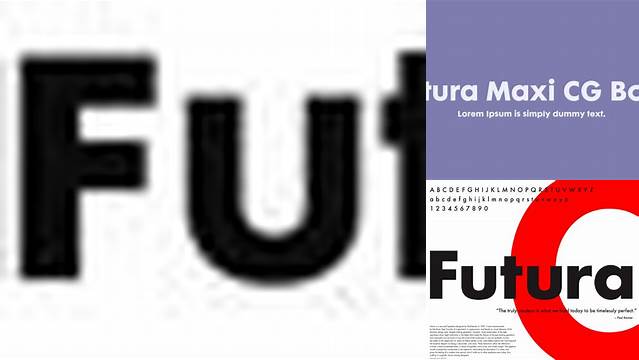
Hey guys! Ever stumbled upon a font that just screams modern and clean? If you're nodding, then chances are you've met Futura Maxi. This geometric sans-serif font is a true design icon, loved for its simplicity and versatility. And the best part? You can often find a Futura Maxi font family free download! In this comprehensive guide, we'll dive deep into everything you need to know about this amazing typeface. We'll explore where you can snag a free download (legally, of course!), its history, its different styles, and how you can use it to create stunning designs. Get ready to unleash your creativity with the power of Futura Maxi!
H2: The Allure of Futura Maxi: Why It's Still a Design Darling
So, why is Futura Maxi so popular? What makes it such a timeless choice for designers? Futura, with its geometric shapes and clean lines, has a certain charm. Let's dig into some of its most appealing qualities:
Geometric Perfection: Futura is based on geometric shapes like circles, squares, and triangles. This gives it a sense of balance and order that's inherently pleasing to the eye. It's precise and calculated, creating a modern and sophisticated feel.
Readability: Despite its geometric appearance, Futura is remarkably readable. Its clean lines and open counters (the spaces within letters) make it easy to scan and comprehend, both in print and on screen. That’s why it works so well in big headlines and small body text.
Versatility: Futura is a chameleon. It adapts to various design styles. Whether you're designing a minimalist website, a bold poster, or a sleek logo, Futura can hold its own.
Neutrality: Futura doesn't have a strong personality that overpowers your design. It steps back and lets your content and images take center stage, making it a great choice when you want the focus to be on something other than the font itself.
Historical Significance: Futura has been around for almost a century, and its presence in design is a testament to its enduring appeal. Used by many well-known brands and famous design works, it's instantly recognizable and associated with quality and modernity.
Modern Feel: Futura's clean lines and geometric shapes give it a very modern look, making it a great choice for contemporary design projects.
H3: Iconic Brands That Love Futura (and You Can Too!)
It's easy to see why so many brands have chosen this font. Want some inspo? Let's look at some big names that have used Futura, or similar geometric sans-serif fonts, to give you some ideas. Using this type of font can also give you some ideas on the Futura Maxi font family free download and how to use it!
Louis Vuitton: The luxury brand employs Futura for its logo and branding. It speaks to the brand's sophisticated style, while also giving a sense of timelessness.
Supreme: The streetwear brand often uses Futura for its iconic logo and apparel designs. The font's simplicity and clean lines complement the brand's bold graphics and designs.
Wes Anderson: The director is known for his signature aesthetic, and uses Futura for his film titles. It’s part of what gives his films their unique visual style.
Volkswagen: The automaker has used Futura in its branding. It has been used to convey a sense of reliability and engineering excellence.
H3: Beyond Futura Maxi: Exploring Similar Geometric Sans-Serif Fonts
If you're exploring the world of the Futura Maxi font family free download and you are also open to more options, you should know that similar geometric sans-serif fonts can bring that same clean, modern aesthetic to your design.
Avant Garde Gothic: This font is known for its distinctive letterforms, including its unique "A" and "G". It has a distinctive vibe, yet similar to Futura's minimalist approach.
Gotham: This font is renowned for its clean lines, open counters, and is inspired by the architecture of New York City. The font is another fantastic choice for branding, headlines, and body text.
Raleway: While a bit more contemporary in feel than Futura, Raleway has the same clean lines and simplicity. It's extremely versatile and works well in digital designs and print materials.
Cabin: Cabin has a slightly more rounded feel compared to Futura, making it very readable. It's a great option for body text, while still possessing that modern vibe.
H2: Mastering Futura Maxi: Usage Tips and Design Inspiration
Okay, so you've found your Futura Maxi font family free download (or a similar font!) now what? Here are some quick tips and design ideas to get you started.
Headlines and Titles: Futura excels in larger sizes, where its geometric shapes and clean lines really shine. It's perfect for headlines, titles, and other display text.
Logos and Branding: Its simplicity makes it an ideal choice for logos. Its timeless appeal also translates well to a variety of industries.
Web Design: It's super readable on screens and adds a sleek, modern touch to any website. Consider using it for headings, navigation menus, and body text (if you need a clean, contemporary look).
Posters and Flyers: The boldness of Futura makes it perfect for grabbing attention in posters and flyers. Experiment with different sizes and weights to create eye-catching designs.
Pairing with Other Fonts: Pair Futura with a contrasting serif font (like Garamond or Times New Roman) to create visual interest. This will help you balance a modern aesthetic with classic details. Use a sans-serif that complements it, such as Helvetica or Open Sans.
H3: Futura Maxi in Action: Design Projects to Inspire You
Ready to get inspired? Let's look at some practical examples where you can use your Futura Maxi font family free download or similar fonts!
Website Design: Imagine a website with a clean, minimalist design using Futura for headlines and navigation. Pair it with a contrasting serif font for body text, and you'll have a modern, readable website. Consider using Futura in the logo, too.
Poster Design: Design a poster for a music festival. Use a bold weight of Futura for the band names, dates, and locations. Choose a bright, contrasting color palette to grab the viewer's attention.
Logo Design: Design a logo for a tech startup using Futura. The font is a testament to the brand's innovation. Use a simple geometric shape and a bold color to make it memorable.
Editorial Design: Design a magazine spread. Use Futura for the headlines and subheadings, and pair it with a classic serif font for the body text. Use large, bold headlines to create an eye-catching layout.
Packaging Design: Design packaging for a product. Use Futura for the brand name and product information, making it simple and clean, and highlight the product's quality.
H3: Maximizing Readability: Tips for Using Futura Maxi in Body Text
While Futura Maxi is fantastic for headlines, it can sometimes be a bit tricky to read in large blocks of text. Here are some tips to make it work.
Choose the Right Weight: For body text, consider using a lighter weight of Futura. This will make it easier on the eyes. The bold or extra-bold weights are best saved for headlines.
Adjust Kerning: Pay attention to the kerning (the space between letters). Sometimes, Futura can appear a bit tight in body text. Adjust the kerning to improve readability.
Line Height: Ensure that the line height (the space between lines of text) is generous. This can make the text easier to scan.
Font Size: Choose a font size that's comfortable to read on screen or in print. Generally, a size between 12 and 16 points is a good starting point for body text.
Color Contrast: Make sure there's enough contrast between the text color and the background. Dark text on a light background (or vice-versa) is best for readability. You don't want the reader to strain their eyes!
H2: Beyond the Basics: Exploring the Futura Maxi Family (And Alternatives!)
Let's get even more detailed. There are different weights and styles of Futura. It's time to find a font for your Futura Maxi font family free download!
Weights: Futura comes in various weights, from light and book to bold and extra bold. Choose the weight that best suits your project.
Styles: Futura has condensed, italic, and oblique styles, giving you more design options. Explore the font’s variations to help you choose what best suits your work.
Alternatives: If you can't find the exact Futura Maxi, look for similar geometric sans-serif fonts. These alternatives will give you the same modern aesthetic, especially if you're trying to find a Futura Maxi font family free download.
H3: Understanding the Different Weights and Styles of Futura Maxi
When exploring your Futura Maxi font family free download options (or similar fonts), you'll quickly discover a range of weights and styles. Here's a quick guide.
Light: The lightest weight is best used for smaller text or delicate designs.
Regular: Ideal for body text and general use.
Medium: A slightly bolder weight that works well for headlines and emphasis.
Bold: Perfect for headlines, titles, and any text that needs to stand out.
Extra Bold/Black: Use this weight sparingly, as it can be overpowering if overused. It's best reserved for very large headlines or graphic elements.
Italic/Oblique: The italic or oblique style adds a bit of flair to your text. Use this style when you want to emphasize words or phrases, or create visual interest.
Condensed: Condensed weights are great for fitting more text into a limited space, such as in headlines or in a crowded layout.
H3: How to Customize and Modify Your Futura Maxi (or Similar) Fonts
Once you've snagged your Futura Maxi font family free download, you might want to customize it. Remember to check the license to ensure that your modifications are permitted.
Kerning and Tracking: Adjust the kerning and tracking to control the spacing between letters and words. This can improve readability and visual appeal. This applies to any font!
Font Combination: Experiment with pairing Futura with other fonts to create interesting design combinations. Try mixing Futura with a serif or a more decorative font.
Color and Effects: Use different colors and effects to add visual interest to your text. Experiment with shadows, outlines, gradients, and other visual effects to create unique designs.
Scale and Transformation: You can scale, rotate, and transform your text to create unique layouts and designs. Don’t be afraid to think outside the box!
H2: Troubleshooting Common Futura Maxi Download and Usage Issues
Sometimes, you might run into issues with your Futura Maxi font family free download. Here are some common problems and how to solve them:
Font Not Displaying Correctly: Make sure the font is installed correctly on your system. Restart your design software after installation.
Font Doesn't Appear in Software: Check that the font is compatible with the software you're using. Some software might have specific font format requirements.
Licensing Conflicts: If you're using a font for commercial purposes, make sure you have the proper license. Double-check all the details! Otherwise, you might face some legal problems!
Readability Issues: Experiment with different weights, sizes, and colors to improve readability. Ensure there's sufficient contrast between the text and background.
H3: Common Download Problems and How to Fix Them
Problems can occur when you download your Futura Maxi font family free download. Here are some issues and how to fix them:
Download Errors: Ensure you have a stable internet connection. Try downloading the font again from a reliable source. Check your internet connection.
Corrupted Files: If the downloaded file is corrupted, try downloading it again from a different source or using a different browser. Also, you should try to check the integrity of the downloaded file.
Compatibility Issues: Make sure your operating system and design software support the font format. Update your software if necessary.
Font Installation Problems: Make sure the font file is in a supported format. Check your operating system’s instructions for installing fonts. Consider restarting your computer after installation.
H3: Enhancing Readability and Avoiding Design Pitfalls
Even with your beautiful Futura Maxi font family free download or other fonts, it's easy to make mistakes. So, how can we improve? Here are the tips for great readability and avoiding common design pitfalls.
Overuse: Don't overuse the font. It's best used for headlines and titles. If you’re tempted to use Futura everywhere, don’t! Less is more.
Bad Kerning: Always adjust the kerning. Avoid letting the letters overlap or have too much space between them.
Poor Contrast: Avoid using light text on a light background. This is a big no-no! Make sure there’s enough contrast between the text and the background.
Misalignment: Make sure your text is aligned properly. Make sure the text is not off-center or difficult to read.
Overly Condensed: Avoid using condensed fonts for long blocks of text. Stick to regular or light weights for readability.
H2: Futura Maxi in the Digital Age: Web Design and Beyond
In the digital age, Futura Maxi continues to be a go-to choice. It's a great example of how you can create simple, yet effective designs.
Web Design: It's super readable and offers a sleek, modern touch to any website. Futura adds elegance to any design. Consider using it for headings, navigation menus, and body text (if you need a clean, contemporary look).
Mobile App Design: In mobile app design, Futura is great for creating a clean and user-friendly experience, making your app easier to navigate and more aesthetically pleasing.
Social Media Graphics: Its clean lines and geometric shapes work great. Think of this when designing your social media graphics, giving your content a modern and engaging look.
H3: The Perfect Pairing: Fonts That Complement Futura Maxi in Web Design
Choosing the right font pairings is crucial when using your Futura Maxi font family free download in web design. Here are some fonts that pair well with Futura to create stunning designs:
Helvetica: This font has clean lines. It works well with Futura for a modern and timeless look.
Open Sans: Open Sans is readable and versatile, making it great for body text. Together, they create a balanced and clean design.
Roboto: Roboto works well because it's clean and easy to read on screens. A good option for body text when pairing with Futura.
Lato: This font offers a warm and friendly feel. A great balance with the modern simplicity of Futura.
Source Sans Pro: Source Sans Pro is optimized for screen readability and is a great choice for body text. A great alternative to other sans-serif options.
H3: Futura Maxi and Accessibility: Designing for Everyone
Accessibility is super important. When you're using your Futura Maxi font family free download for web design, keep in mind these principles for people with disabilities:
Color Contrast: Ensure a high color contrast between your text and background. This is a must. It'll improve readability for users with visual impairments.
Font Size: Use a readable font size. Don't go too small. Use a font size large enough that makes it easy to read.
Alternative Text: Add alternative text to your images, particularly those containing text. This helps screen readers.
Text Spacing: Adjust the line height and letter spacing to improve readability, particularly for users with dyslexia. Adjust the spacing between letters and lines.
Font Weights: Use appropriate font weights to create emphasis and improve readability. Varying between different weights can improve readability.
H2: Free Alternatives to Futura Maxi: Exploring Other Design Options
If you're on the hunt for a Futura Maxi font family free download, but you're open to other options, there are tons of fantastic free alternatives that capture that same modern aesthetic.
Montserrat: This font has clean lines and geometric shapes. You will find that this will create a balance and is great for headlines and body text.
Open Sans: Extremely versatile, readable, and often used for web design. A great font to use as a good pairing to your design.
Lato: Great for both headlines and body text. A versatile choice that balances form and function.
H3: Open-Source Fonts Inspired by Futura: Free Alternatives You'll Love
When you're searching for your Futura Maxi font family free download, check out these open-source fonts that are inspired by Futura.
Poppins: This font is a geometric sans-serif font. It's clean, modern, and versatile, making it great for various design projects.
Nunito Sans: It offers a friendly, rounded feel, giving it excellent readability. This font is a great option for body text.
Work Sans: It has a clean, geometric design that's great for both headlines and body text, a great balance of form and function.
H3: Blending Futura Maxi with Other Font Styles: Creating Unique Combinations
If you already got your Futura Maxi font family free download, why not spice it up a bit? Here's how you can mix Futura with other fonts!
Serif and Sans-Serif: Pair Futura (a sans-serif) with a serif font like Garamond or Times New Roman. This creates visual interest and makes your design more interesting. The serif font adds a touch of classic detail.
Script Fonts: Use a script font for headlines or titles. This gives a sense of style and will grab the reader's attention. Make sure to use it sparingly.
Decorative Fonts: Add a touch of personality with a decorative font, but don't overdo it. Balance it with the clean look of Futura.
H2: Best Practices for Using Futura Maxi: Dos and Don'ts
Okay, so you've downloaded the Futura Maxi font family free download or are using a similar font. Here are some of the things you can do and should avoid when using Futura and similar fonts in your design work.
Do: Use it for headlines, titles, and short bursts of text. Embrace its geometric forms.
Do: Experiment with different weights and styles. Look at other types of weights that can be used.
Do: Pay attention to kerning and line height. Make sure the text is readable.
Don't: Overuse it, especially for long blocks of text. It can be hard on the eyes.
Don't: Neglect contrast. Always check your color contrast.
Don't: Use a font that does not have a license, for commercial use.
H3: Maximizing Impact: Best Practices for Effective Futura Maxi Usage
Here's what you want to do with your Futura Maxi font family free download or something similar to make your design work shine.
Simplicity: Embrace simplicity. Let the font's clean lines speak for themselves. This means you should not add too many details.
Visual Hierarchy: Create a clear visual hierarchy. Use different font weights and sizes to emphasize what's most important.
Whitespace: Use whitespace effectively. Let your text breathe, so it's readable.
Contrast: Use contrast for your text. Ensure sufficient contrast. Make the text stand out.
H3: Common Mistakes to Avoid When Designing with Futura Maxi
Now, how do you not mess up your Futura Maxi font family free download? Here's a list!
Overcrowding: Don't overcrowd your design. Less is usually more.
Poor Kerning: Check the kerning. Avoid tight spaces.
Weak Hierarchy: Create a good hierarchy. Make the key information stand out.
Poor Contrast: Use enough contrast, so you avoid poor legibility.
H2: The Future of Futura Maxi: Trends and Innovations
What does the future hold for Futura Maxi? It's been around for decades, so you can guess that it's timeless. Even as design trends evolve, Futura and similar fonts will remain relevant.
Adaptation: Expect Futura to continue adapting to new technologies and design trends. The versatility of the font makes this a certainty.
Digital: Futura will continue to thrive in digital spaces. Its clean design will continue to be a go-to choice.
H3: The Enduring Legacy of Futura: Why It Remains a Design Classic
Even after you get your Futura Maxi font family free download, you'll see why it's a design classic.
Timelessness: Futura is a testament to timeless design. Its clean lines have endured, and it will continue to be a font for decades to come.
Modernity: It will continue to be associated with modernity. Its classic, modern design will ensure that.
Adaptability: It's a font that works in so many designs. As design trends change, Futura will adapt.
H3: Emerging Design Trends and the Role of Geometric Sans-Serif Fonts
What are the new trends? How do geometric sans-serif fonts fit into the picture?
Minimalism: The minimalist look will continue to be a dominant design trend. Geometric fonts such as Futura Maxi and similar fonts will be used.
Bold Typography: Big, bold typography is here to stay. These fonts are great for grabbing attention.
Accessibility: Accessible design will become even more important. You will need a font that is readable.
H2: Futura Maxi: Your Go-To Font for Modern Design
So there you have it, folks! You're now ready to use your Futura Maxi font family free download or explore similar options. Futura Maxi and similar fonts are a true design classic. You now have a comprehensive guide! Get out there, design, and have fun!
H3: Wrapping Up: Final Thoughts on Futura Maxi and Font Downloads
So, as we bring this article to a close, remember these key takeaways regarding your Futura Maxi font family free download journey.
License Check: Always check the font license before using. Be safe and protect yourself legally.
Experiment: Experiment with different weights and combinations. Let your creativity run wild!
Readability: Make sure your designs are easy to read. Test your design to improve readability.
H3: Your Creative Journey Begins: Embrace the Power of Futura Maxi